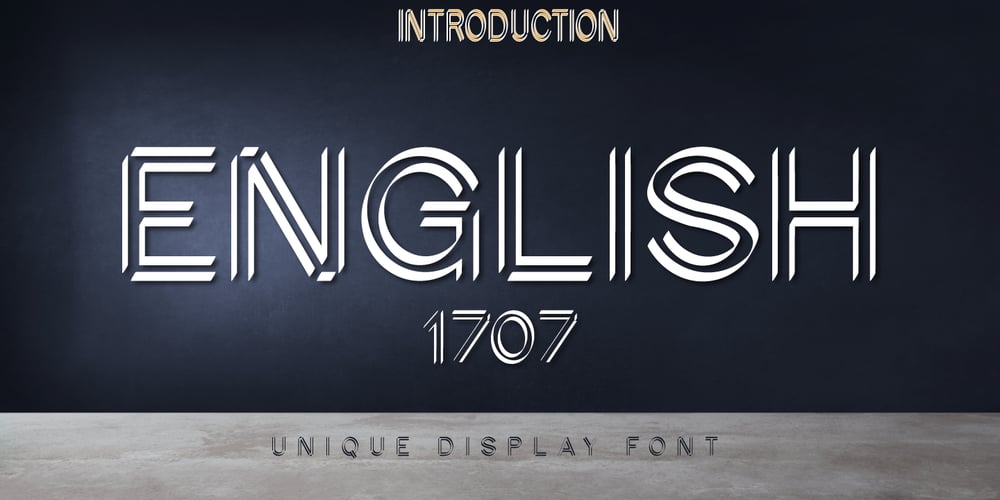
English1707 Font Family was designed by Fauzul Azmi and published by PojolType. English1707 contains 1 styles and family package options. English1707 comes from combining two thick and thin and dashed lines. We can use this font for book titles, billboards, posters, logo designs, clothes, t-shirts, and can also be used for brands.